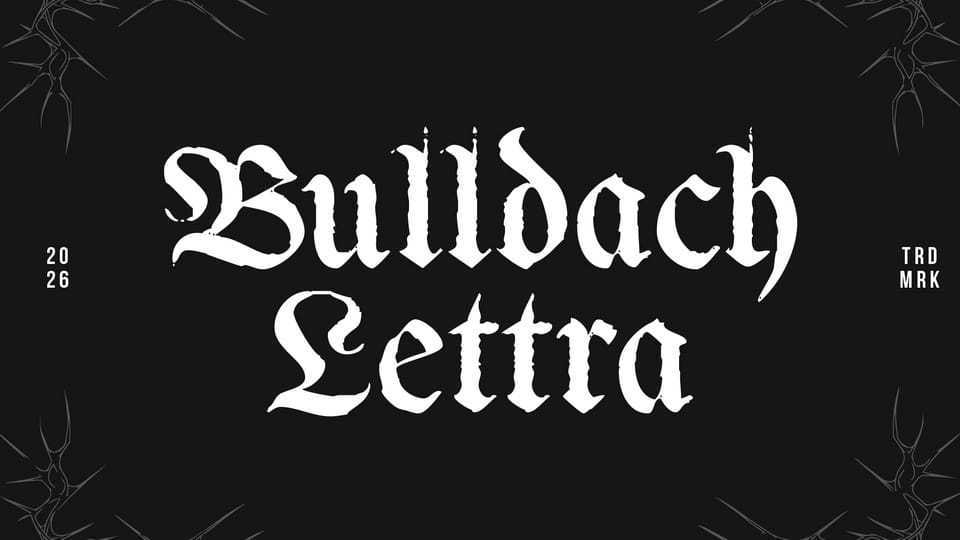
Download Bulldach Lettra font, a bold blackletter typeface inspired by classic gothic typography, featuring sharp letterforms, strong contrast, and intricate details.